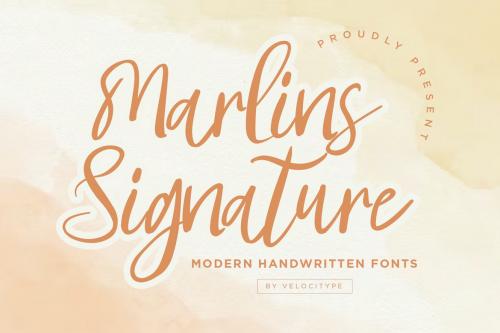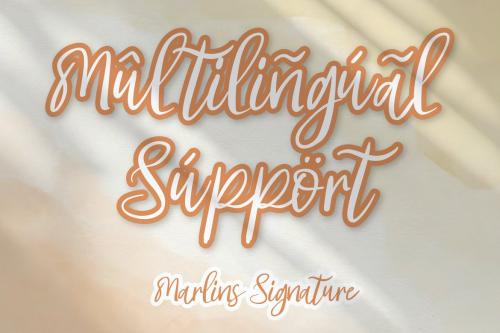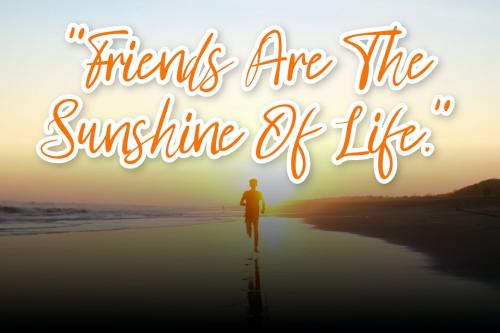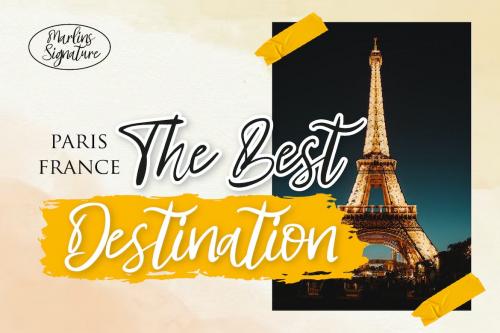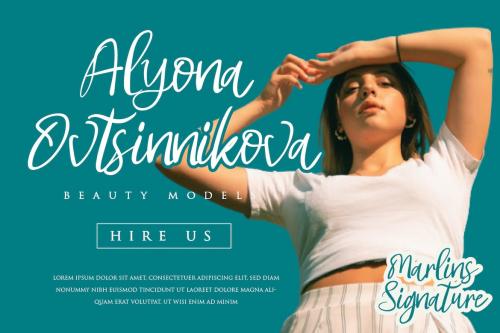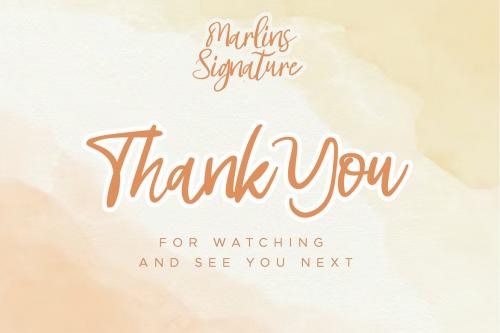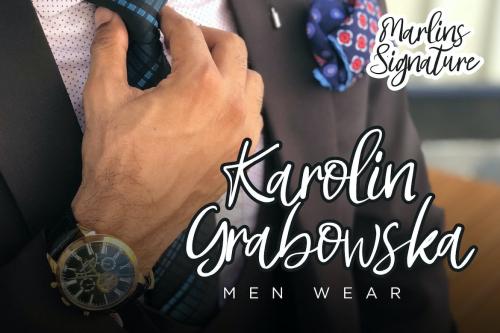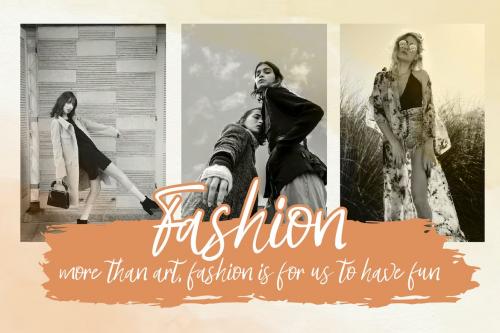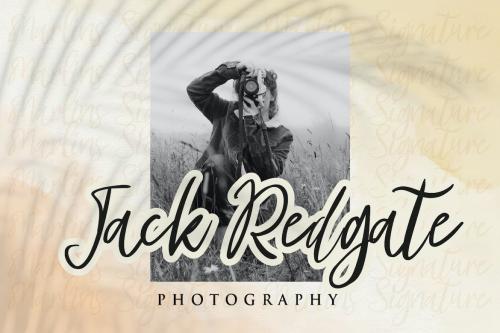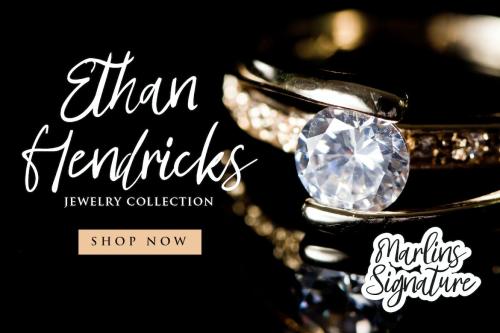
马林鱼签名 - 手写体剧本字体
Marlins Signature is a Handwritten Script font, will be suitable for any projects such as branding, promotional ads, quotes design, merchandise, social media and much more. make your work or your business to high level!!! special events, and all your other lovely projects that need beautiful handwriting taste.
- Accents (Multilingual Characters)